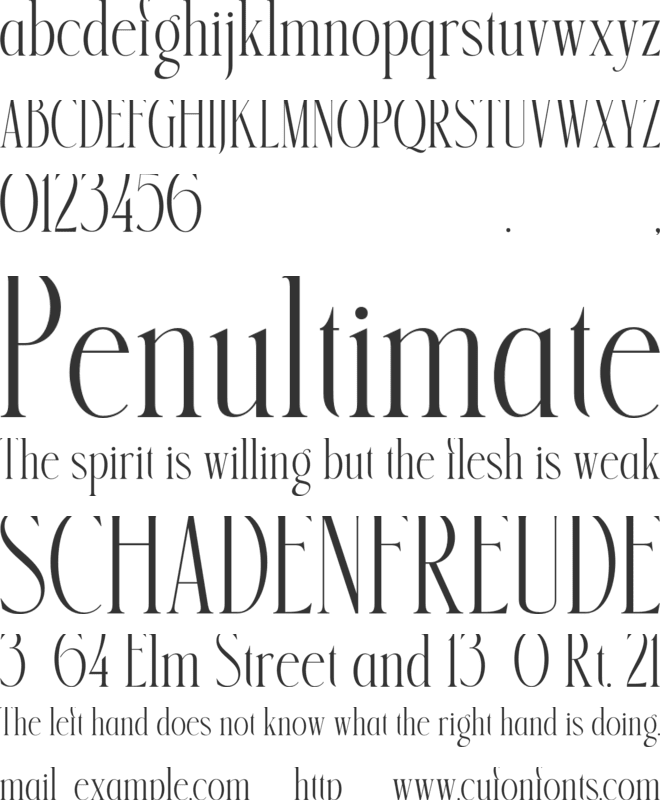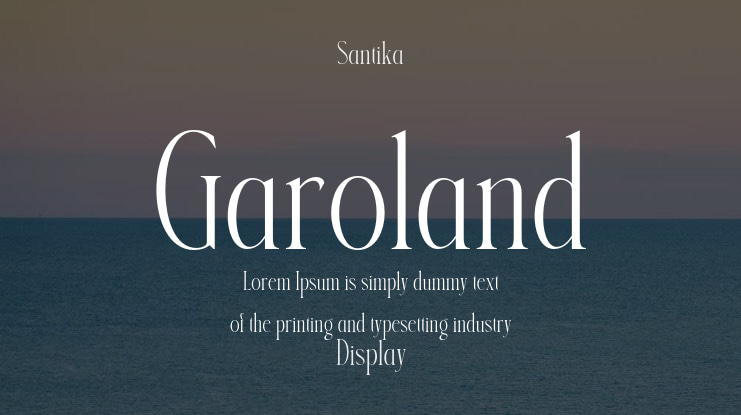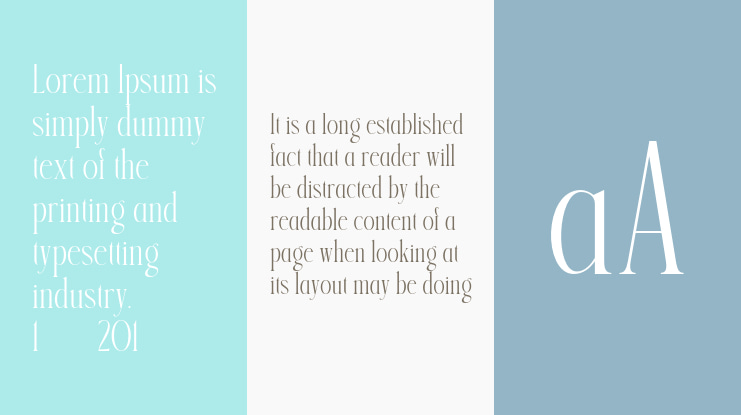
Garoland Font
Garoland is a tall, elegant display serif with an art deco feel and a festive twist. The slim, high-contrast letters look refined at large sizes, and the Alternate style adds twisted, rope-like details that make any holiday headline stand out.
Perfect for:
Christmas cards, gift tags, holiday packaging, product labels, posters, flyers, invitations, seasonal sale banners, menus, and festive branding.